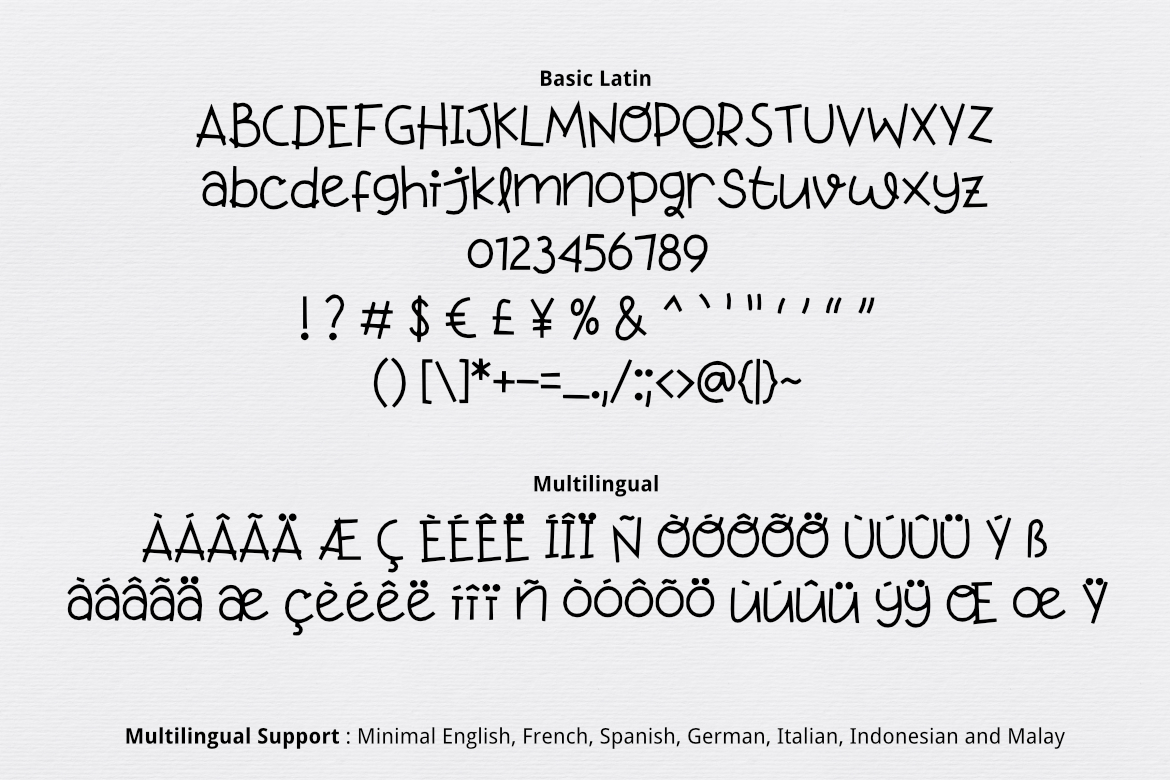
Apple Juice Font . Looking for apple juice fonts? Download the apple juice font for mac or windows in opentype, truetype or postscript format. Simple cute font , suitable for many project, signature , quotes, logo , doodle, heading , title etc. 207,515 downloads (3 yesterday) 3 comments free for personal use. Every font is free to download! What you get apple juice font.ttf and eot. Click to find the best 2 free fonts in the apple juice style. Apple juice font family was designed by alex grecian and published by elemeno. Collection of fonts for apple juice. Apple juice contains 2 styles and family package options.
Download the apple juice font for mac or windows in opentype, truetype or postscript format. Looking for apple juice fonts? Apple juice font family was designed by alex grecian and published by elemeno. Apple juice contains 2 styles and family package options. What you get apple juice font.ttf and eot. Click to find the best 2 free fonts in the apple juice style. Every font is free to download! 207,515 downloads (3 yesterday) 3 comments free for personal use. Collection of fonts for apple juice. Simple cute font , suitable for many project, signature , quotes, logo , doodle, heading , title etc.